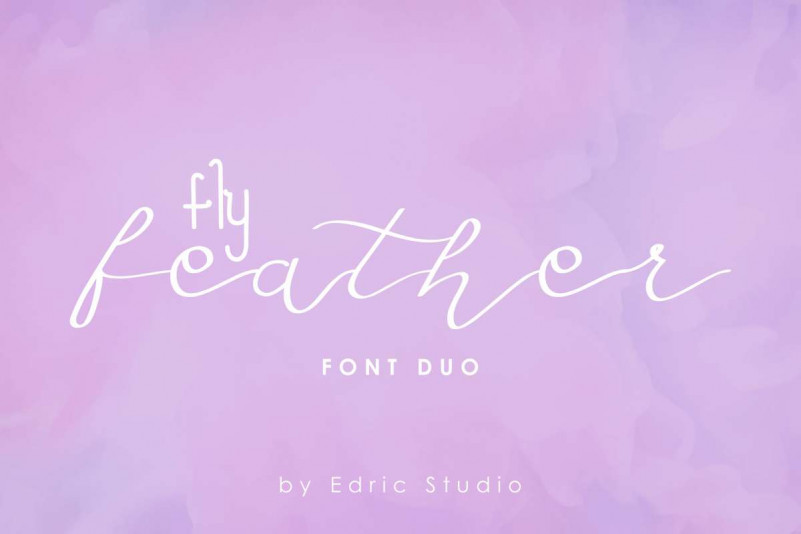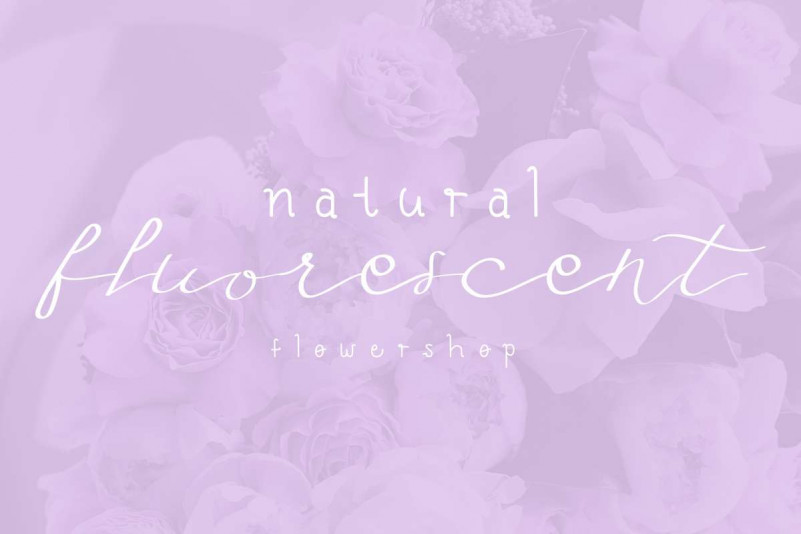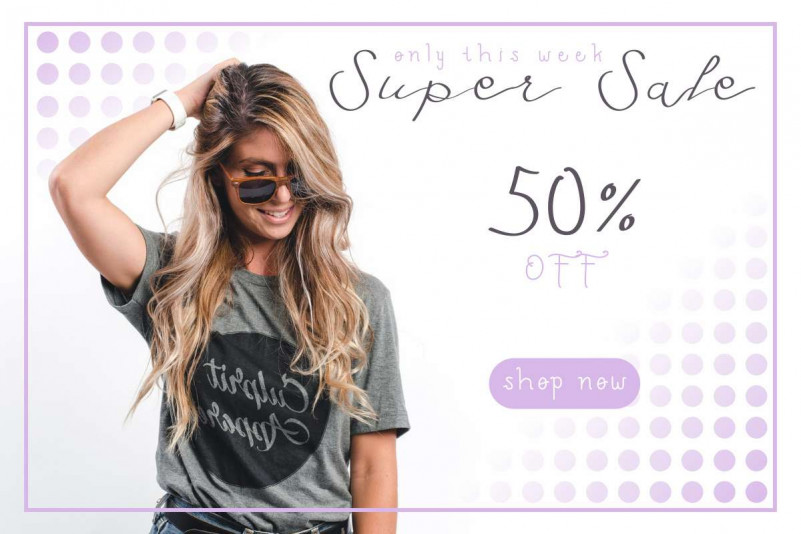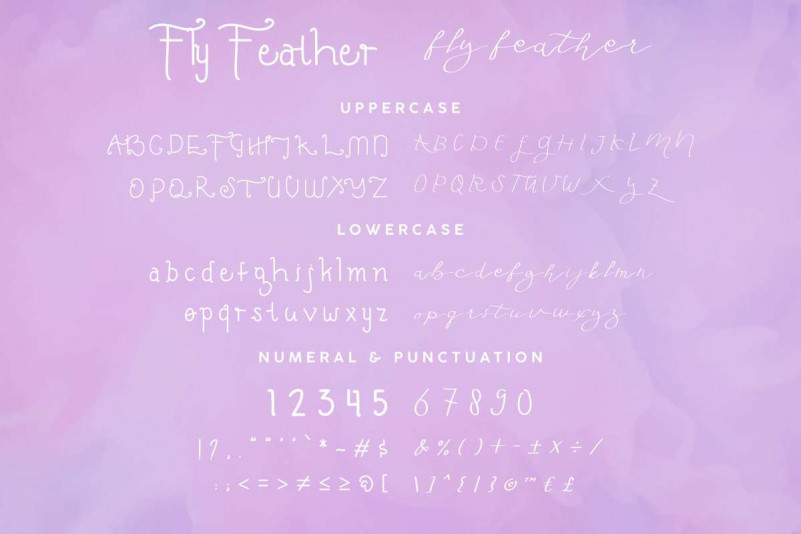
Fly Feather Font Duo
Hola Everyone!! This is us again. Edric Studio. We are presenting to you : fly Feather Font Duo . This is a font duo, contains two different styles : Sans and Script. All of fly Feather Font Duo styles will be awesome for any designs works. Works well for many industry clients : Music, law firm, lawyer, makeup artist, dentist, wedding, finance, etc This font (with extended license) can be used branding , logotype, stationery, card, signage, flyer, brochure etc.